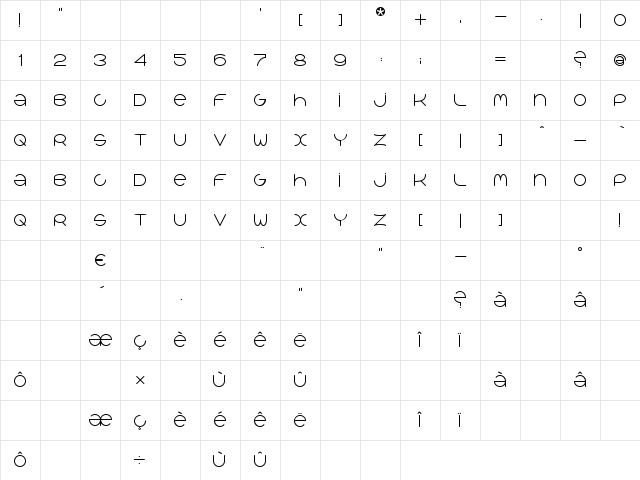
qr?alib Regular
Design Context for qr?alib
qr?alib is a composed and adaptable typeface that performs quietly and consistently across a wide range of design contexts.